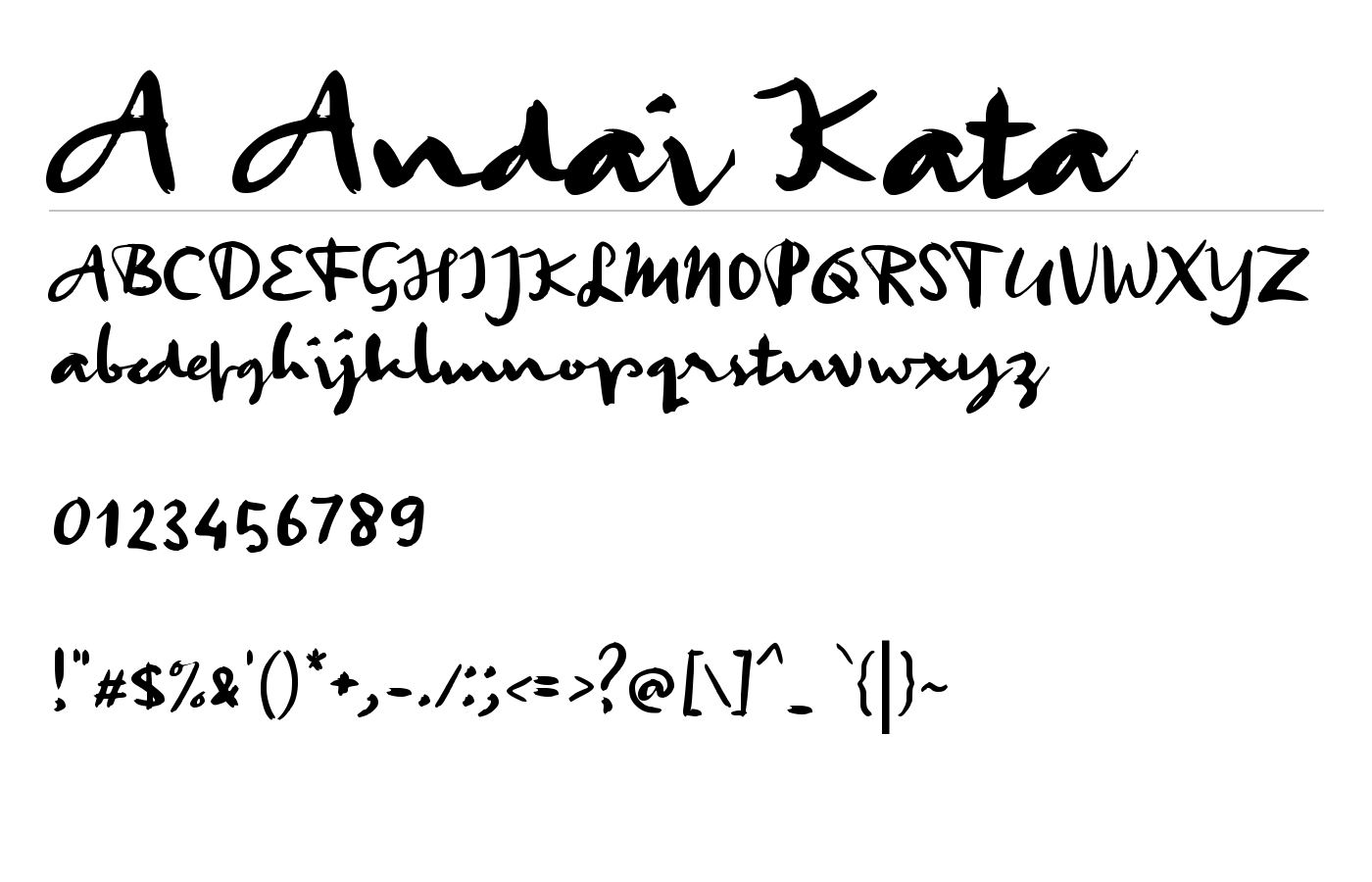
A Andai Kata is a lively handwritten script font with a bold, textured stroke that gives it a casual yet artistic feel. Its irregular shapes and flowing letterforms create an expressive, personal vibe perfect for creative projects, informal branding, and eye-catching headlines. This font works best where a playful, dynamic touch is needed to convey friendliness and originality.
A Andai Kata Font
About A Andai Kata Font